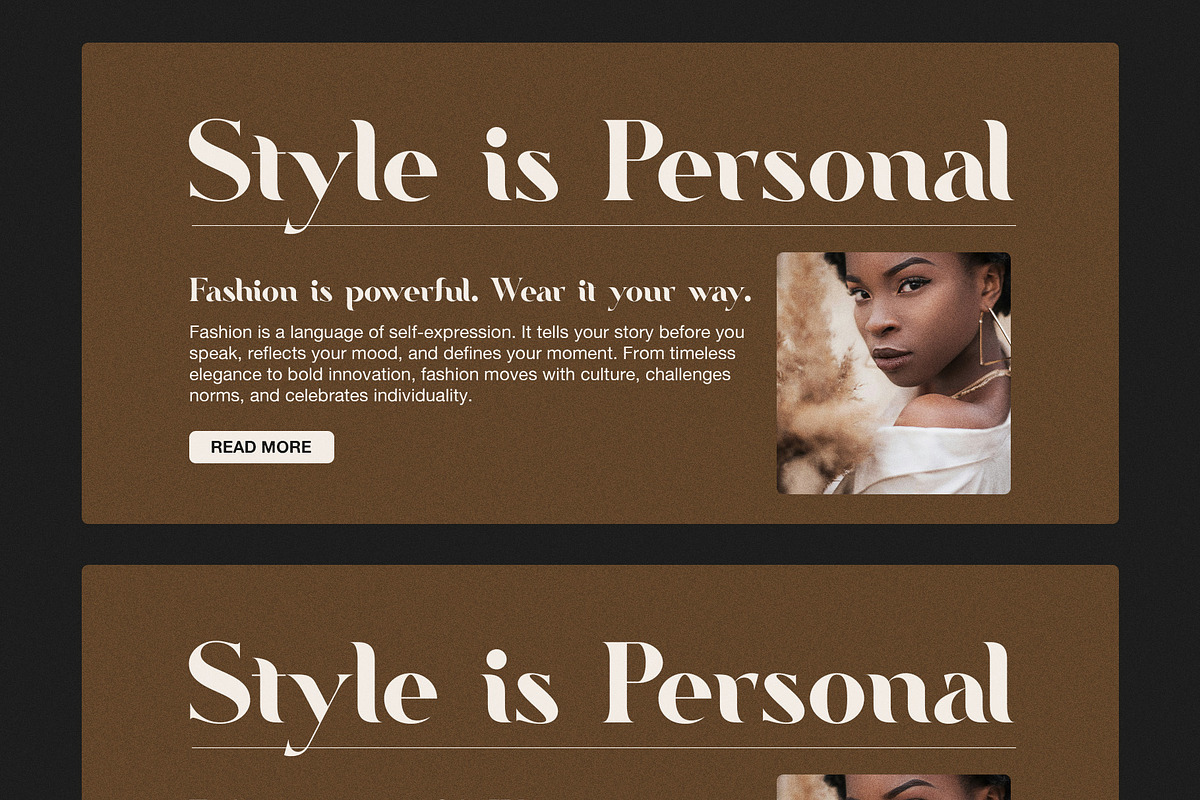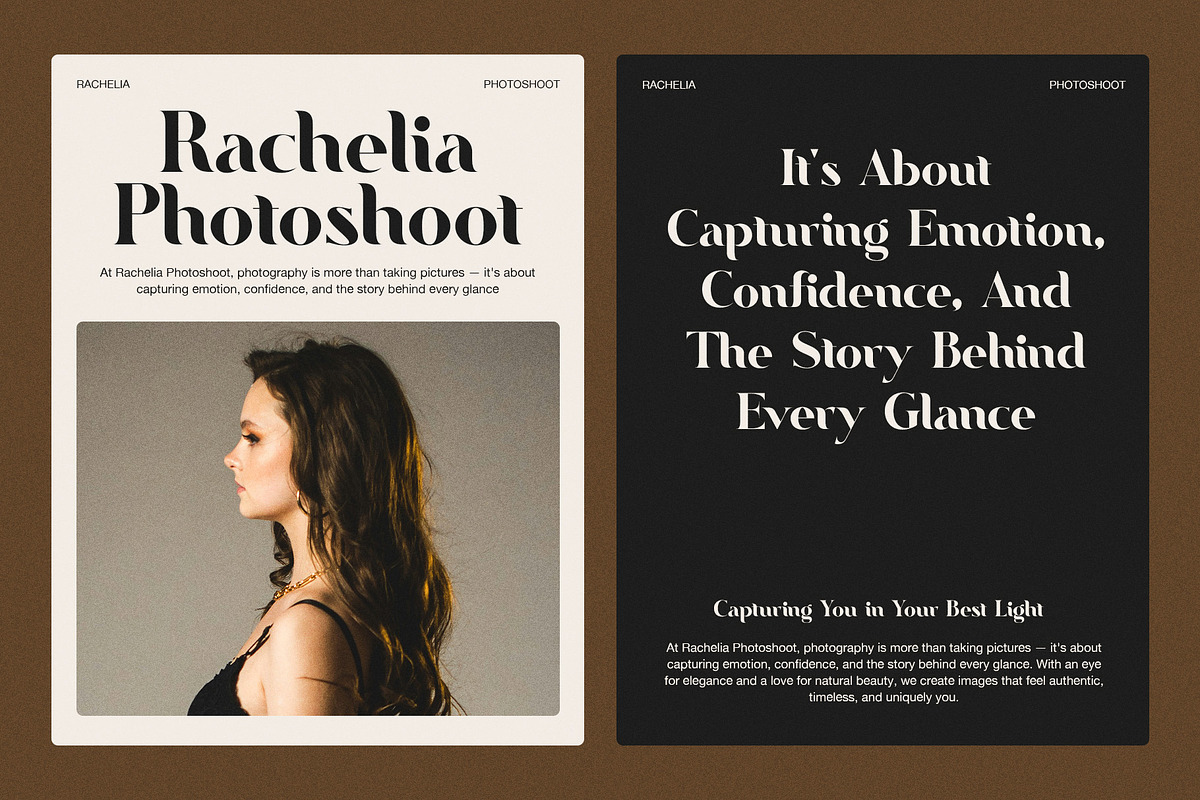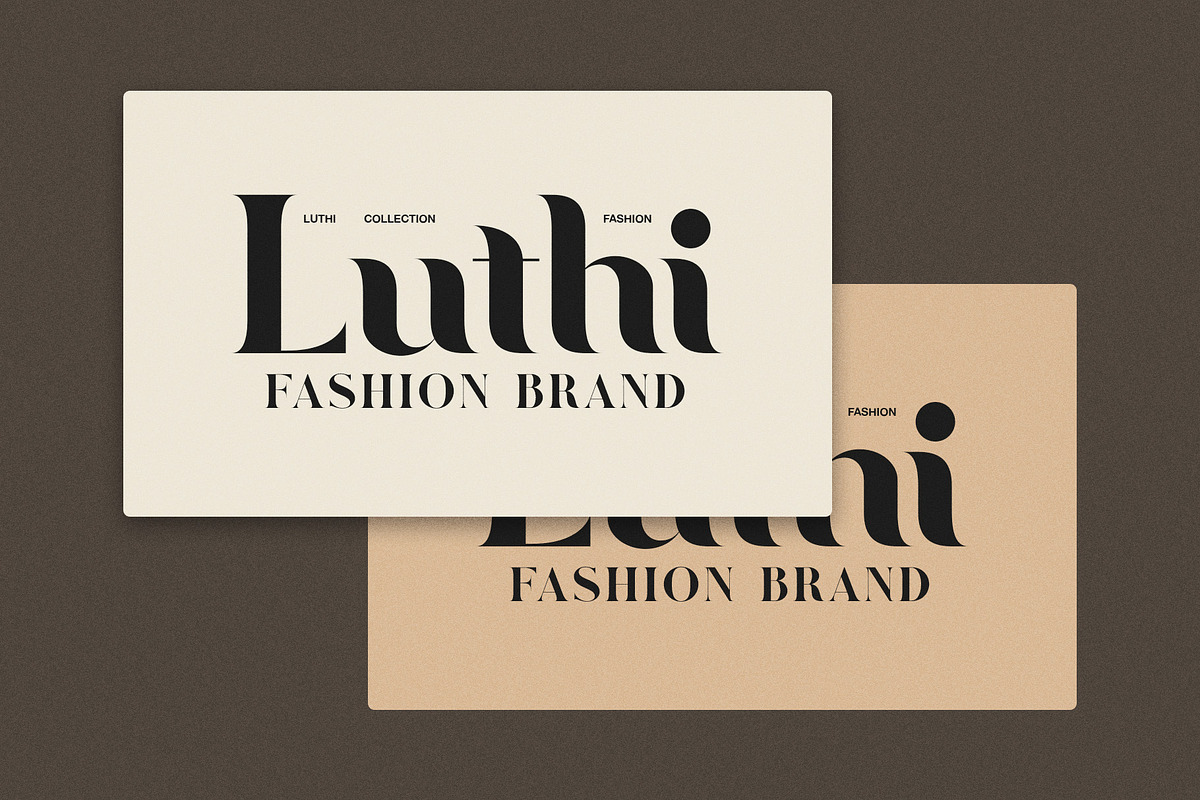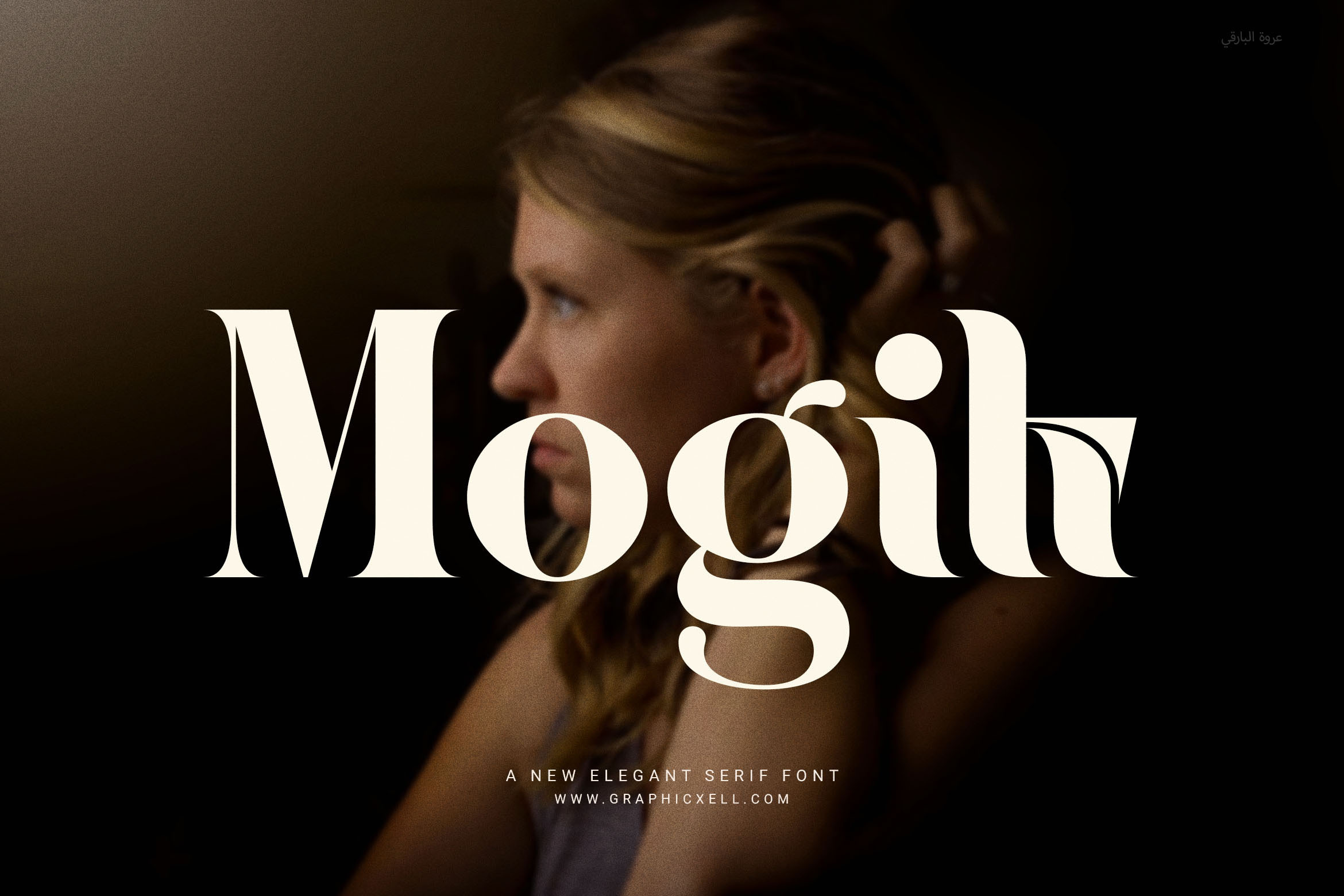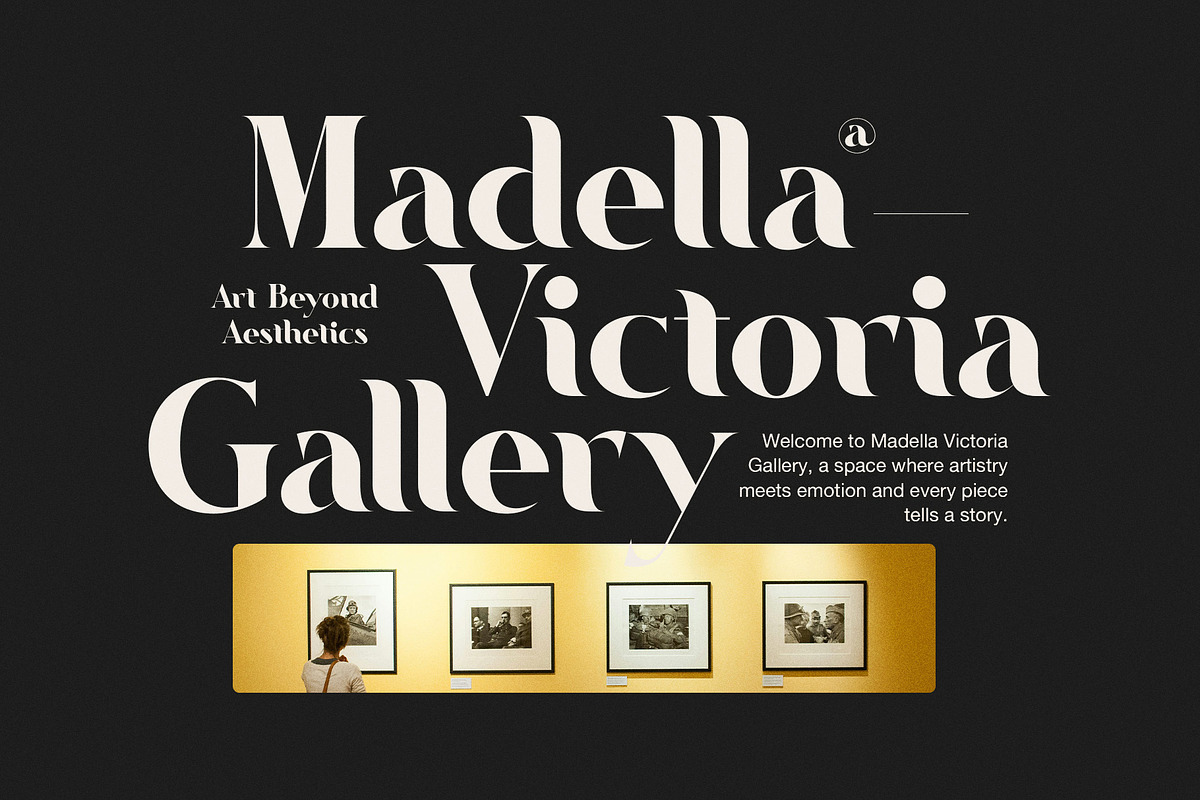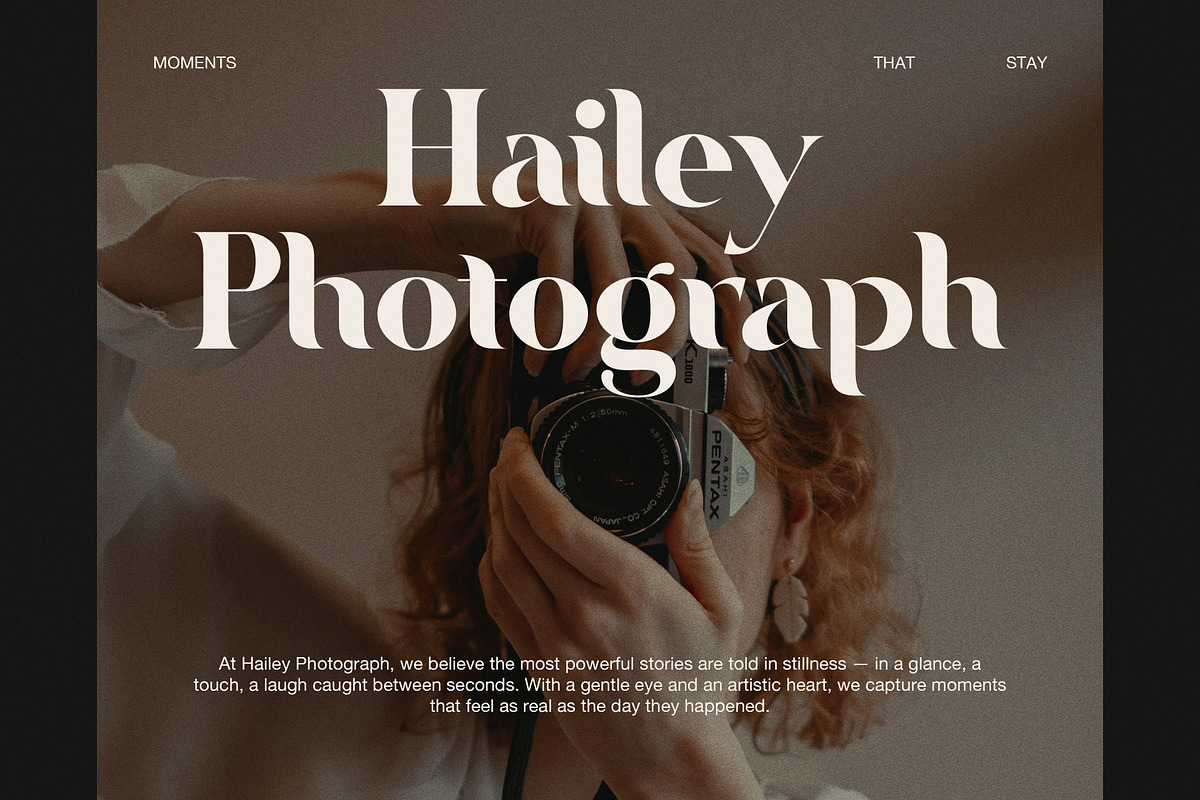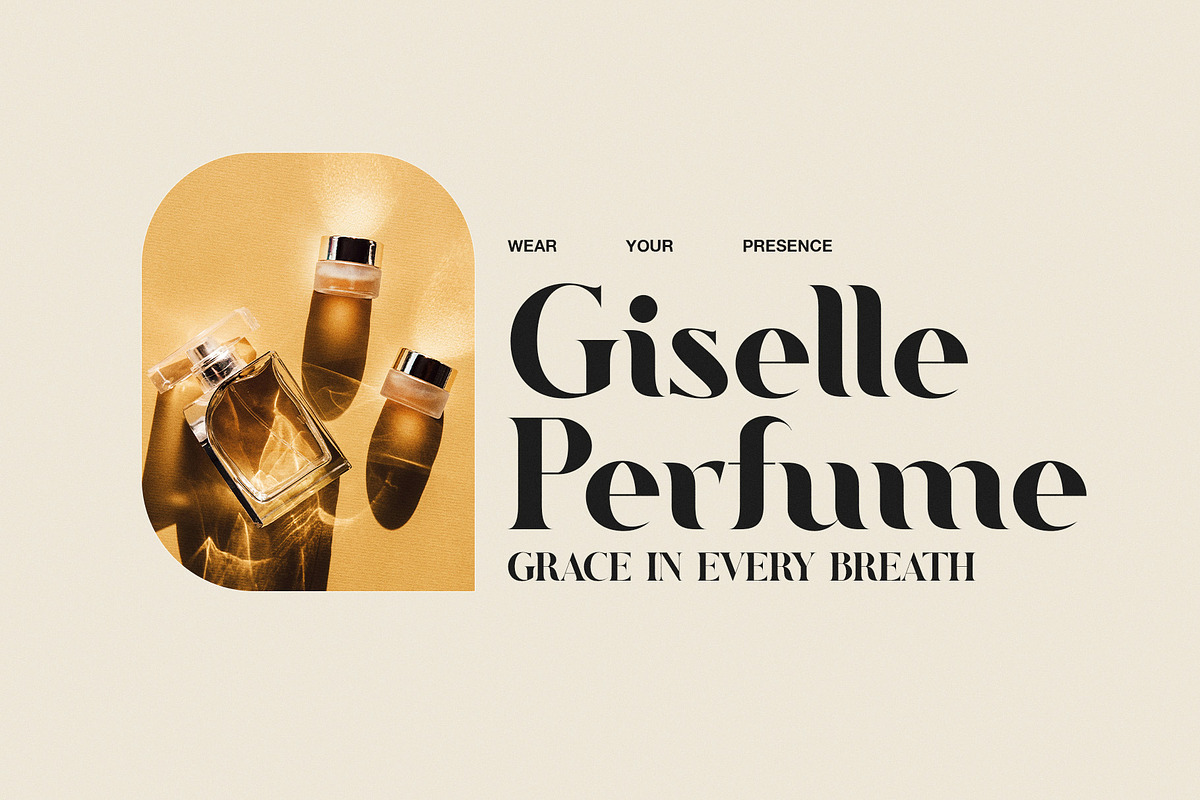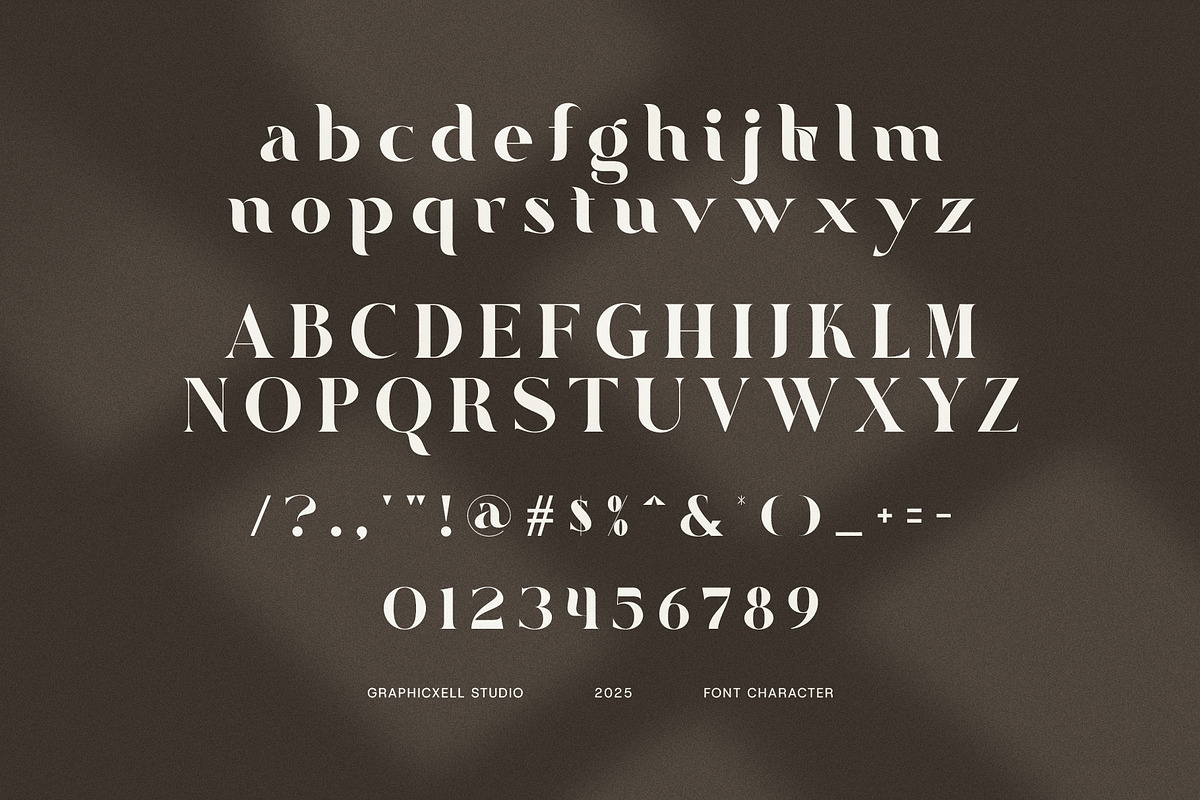
Mogik Elegant Serif Font
Mogik Elegant Serif Font is a stylish and modern serif typeface that brings a smooth, classic feel to your designs. It is designed with clean shapes and even spacing, making it look sharp in any layout. If you want a font that feels both elegant and fresh, Mogik is a great choice.
Thanks to its beautiful curves and balanced proportions, Mogik works well in many types of projects. Whether you're designing a bold logo or a soft wedding invite, this font fits right in. You can also use it for websites, magazine layouts, product packaging, or stylish social media graphics.
Another reason to love Mogik is its unique ligatures. These smart letter combinations make your text feel natural and artistic. As a result, your designs will look more custom and well-crafted. Use them to make your brand stand out, especially for fashion, beauty, or lifestyle products.
✨ Perfect for:
Logo & brand design
Fashion & lifestyle packaging
Wedding invitations
Blog headers & social posts
Magazines & editorials
Business cards & labels
Elegant websites
Product promotions
✏️ Why Choose Mogik:
Mogik gives your work a clean, modern look without losing charm. With thoughtful curves and useful ligatures, it helps your message shine. It’s not only beautiful but also easy to use and adapt.
So, if you want your design to look polished, smart, and elegant, Mogik Elegant Serif Font is the perfect fit for your creative work.